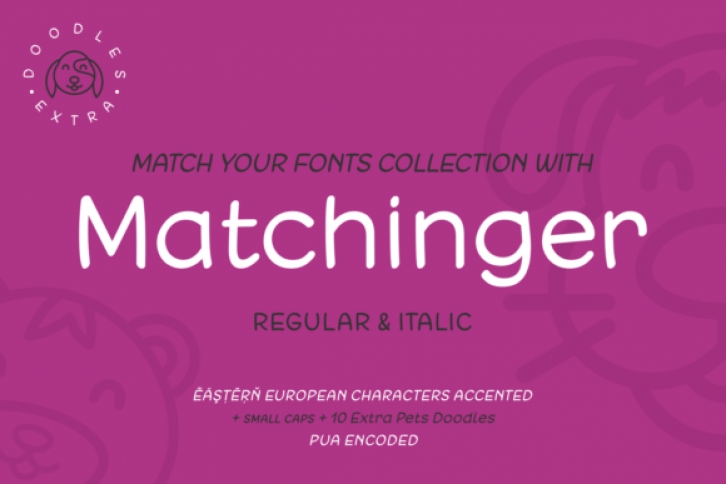
The Macthinger is an amazing modern script font. It comes in a regular and italic style, which can be combined with almost any other typeface and still look awesome!
It’s modern style and perfect readability makes it the perfect font to add to your collection. Also included are some fun animal related doodles.